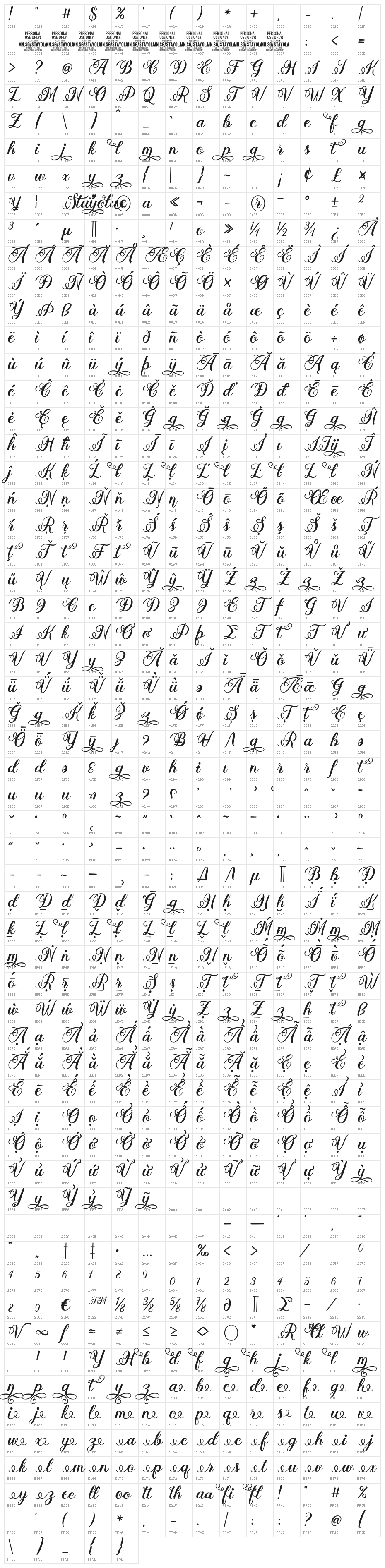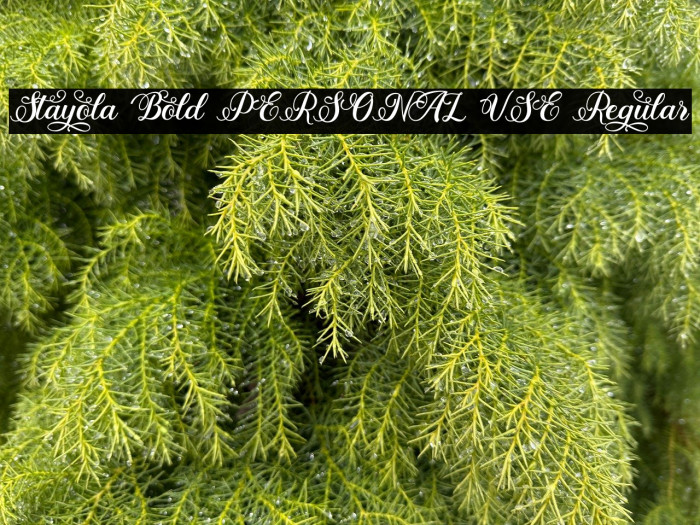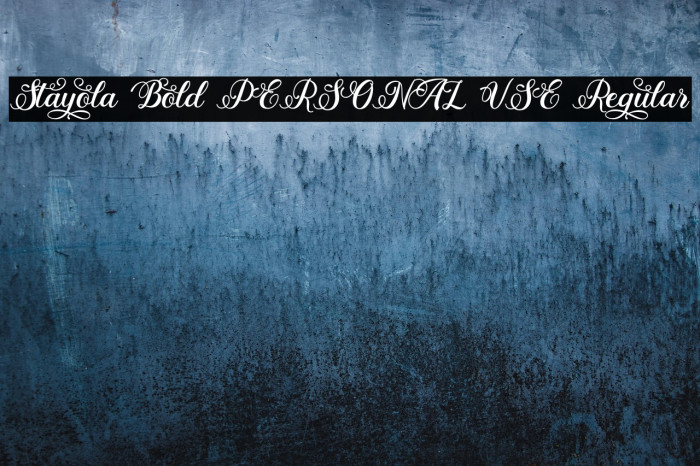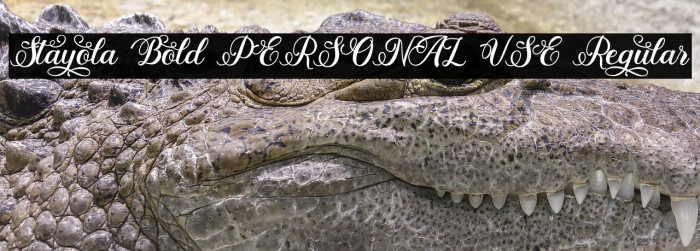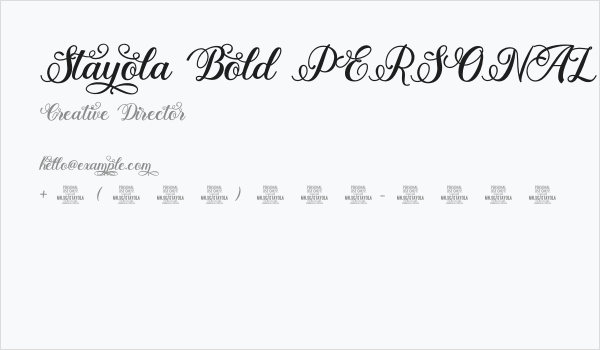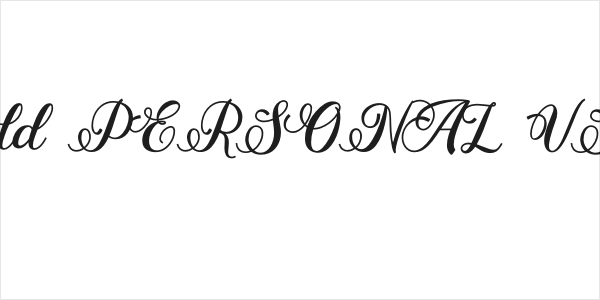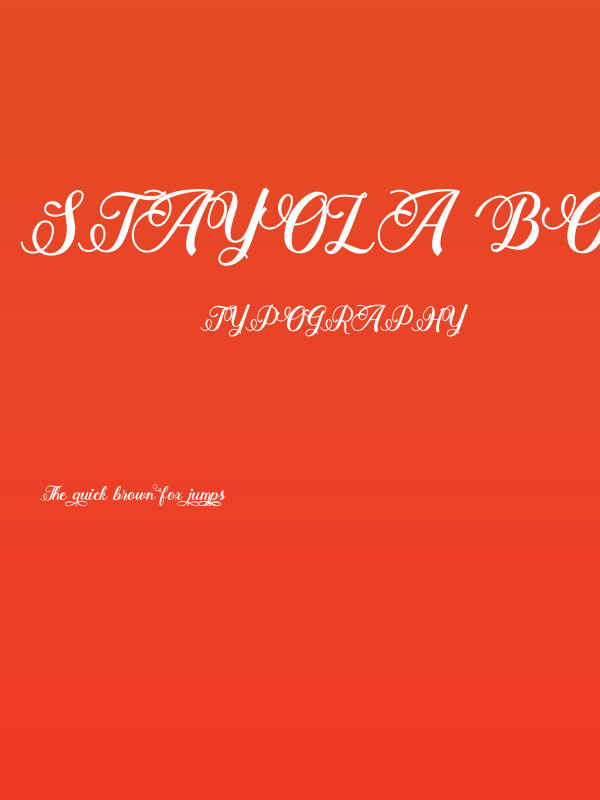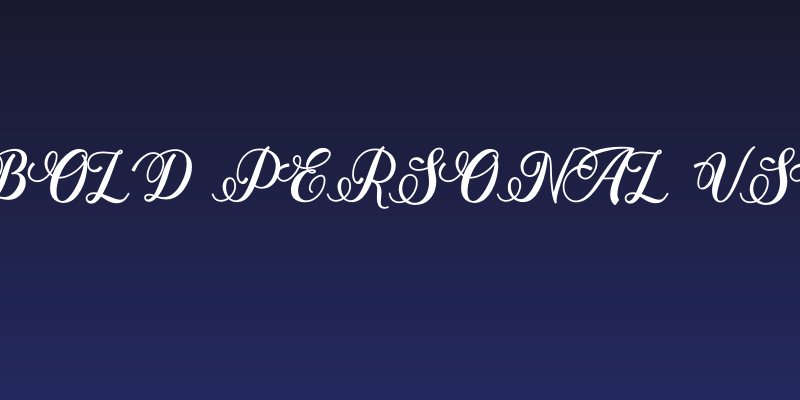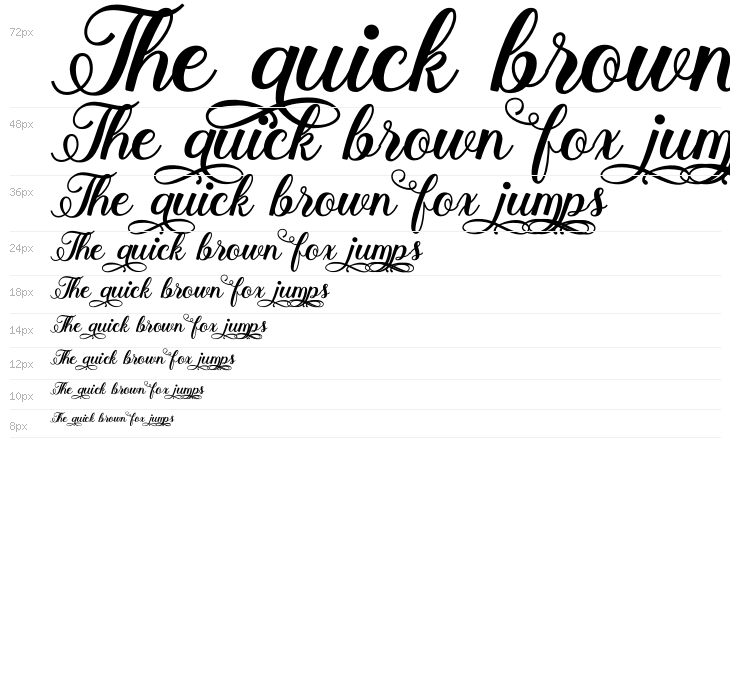
Stayola Bold PERSONAL USE Regular Font
Stayola Bold PERSONAL USE Regular Description
This font features an elegant and flowing script style, characterized by its intricate swashes and loops that give it a sophisticated and decorative appearance. The uppercase letters are particularly ornate, with elaborate curls and flourishes that add a touch of luxury and refinement. The lowercase letters maintain a cohesive style, with smooth, connected strokes that enhance readability while retaining the decorative flair. The numerals and special characters are designed to match the overall aesthetic, ensuring a consistent and harmonious look across all text elements. This font is ideal for projects that require a touch of elegance and sophistication.
| Proposed Projects | Wedding invitations, luxury branding, greeting cards, and elegant packaging design. |